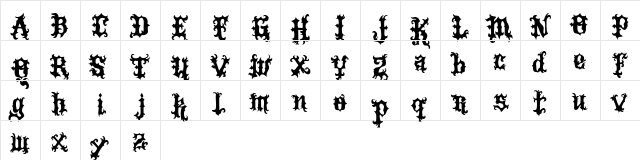
VTKS Tattoo Regular
Design Context for VTKS Tattoo Typeface
VTKS Tattoo is a composed and adaptable typeface that performs quietly and consistently across a wide range of design contexts.